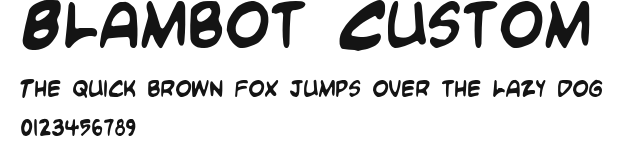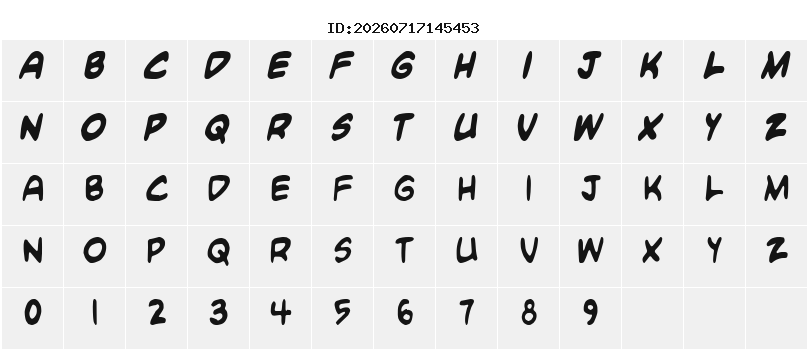
• Font Name: Blambot Custom
• Font ID: Blambot Custom
• Full Font Name: Blambot Custom
• PostScript Name: BlambotCustom
About Blambot Custom.ttf
Blambot Custom.ttf is a modern, elegant sans-serif font designed for ultimate readability and visual harmony. Perfect for branding, headlines, web design, and print materials.